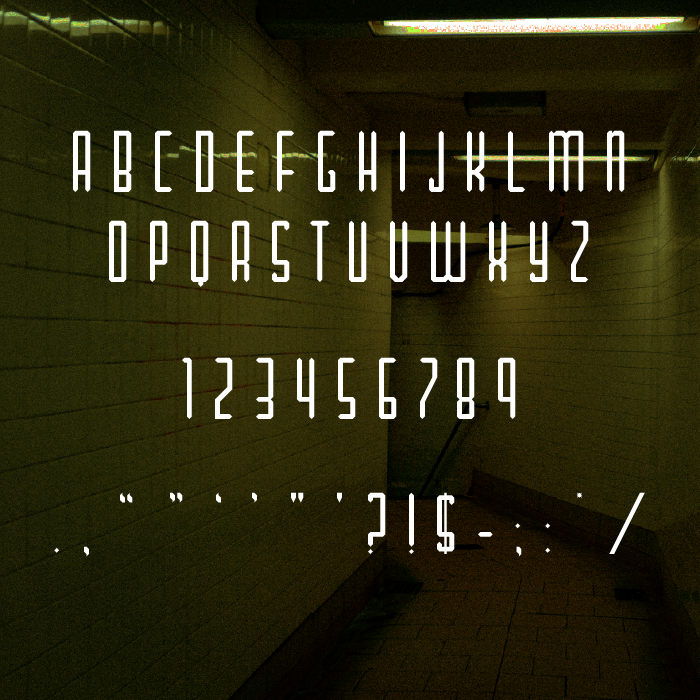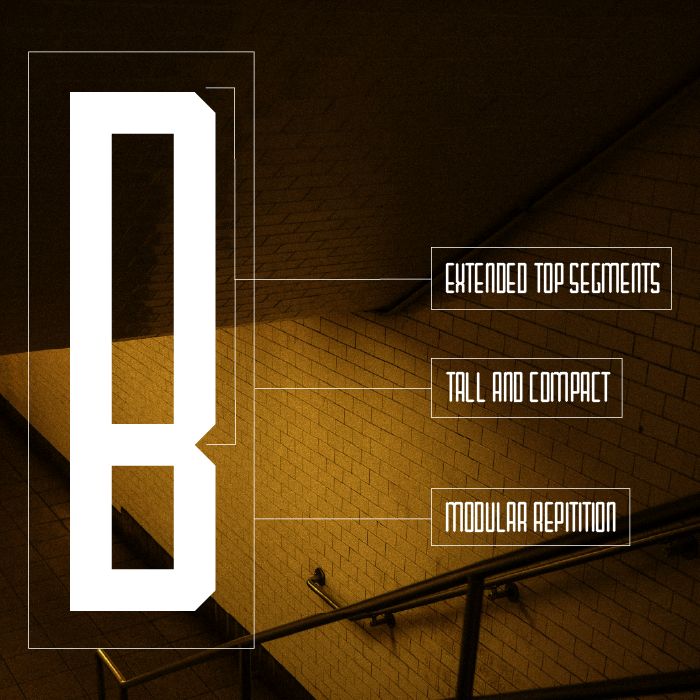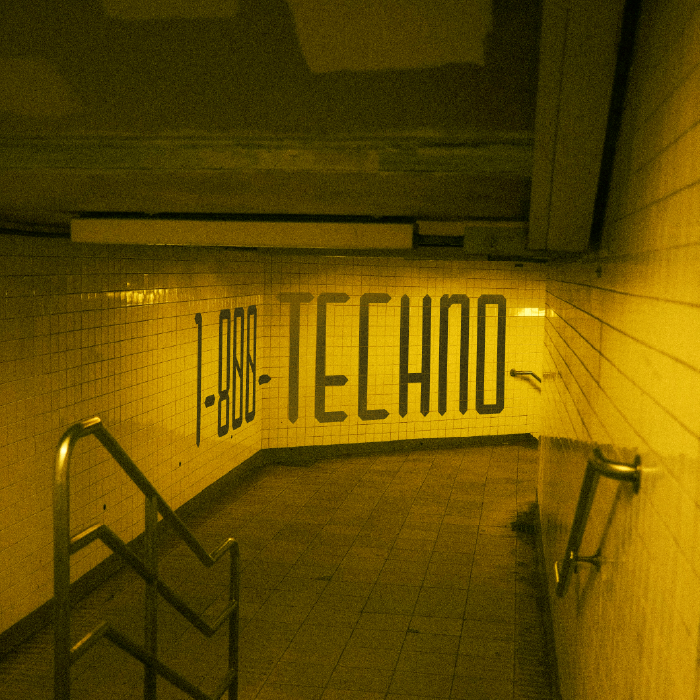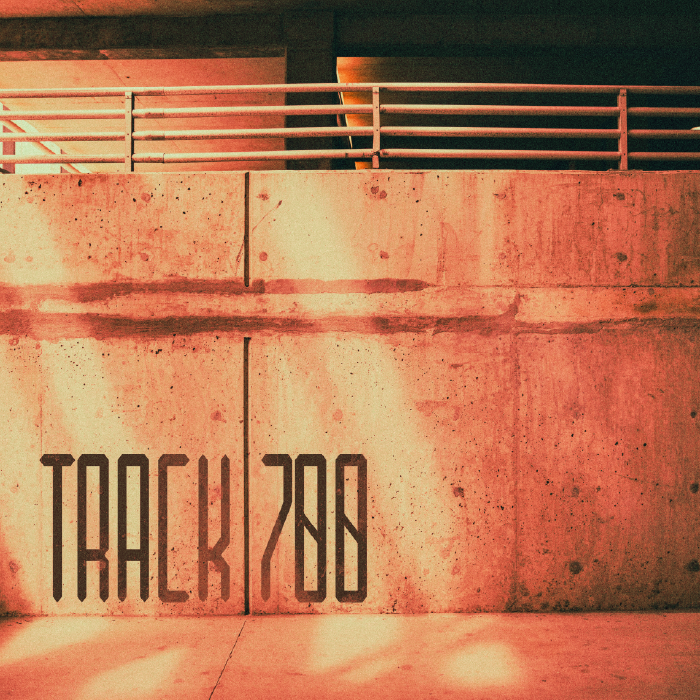
• Techno Afterdark is a condensed modular display typeface defined by strong vertical emphasis and geometric precision. Built from consistent structural components, the design explores repetition, balance, and controlled contrast. Its rigid framework and sharp interior cuts create a bold presence at large sizes.